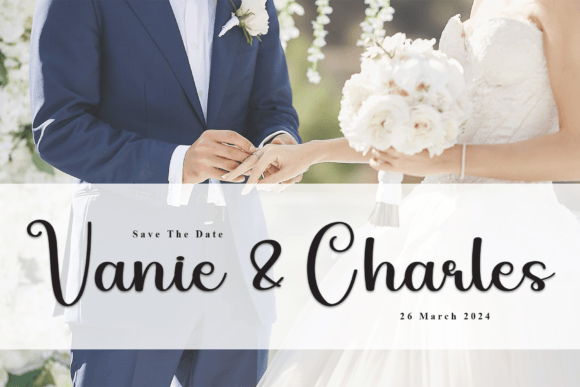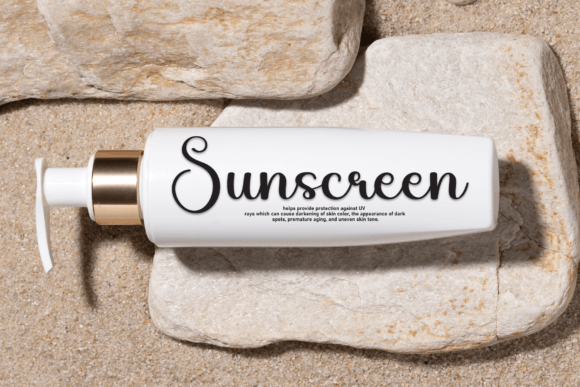
Fairy Font
Fairy is a sweet and friendly handwritten font. Cute and fun, this font is ideal for writing wedding invitations, cards, or any other design that might need a fun touch!